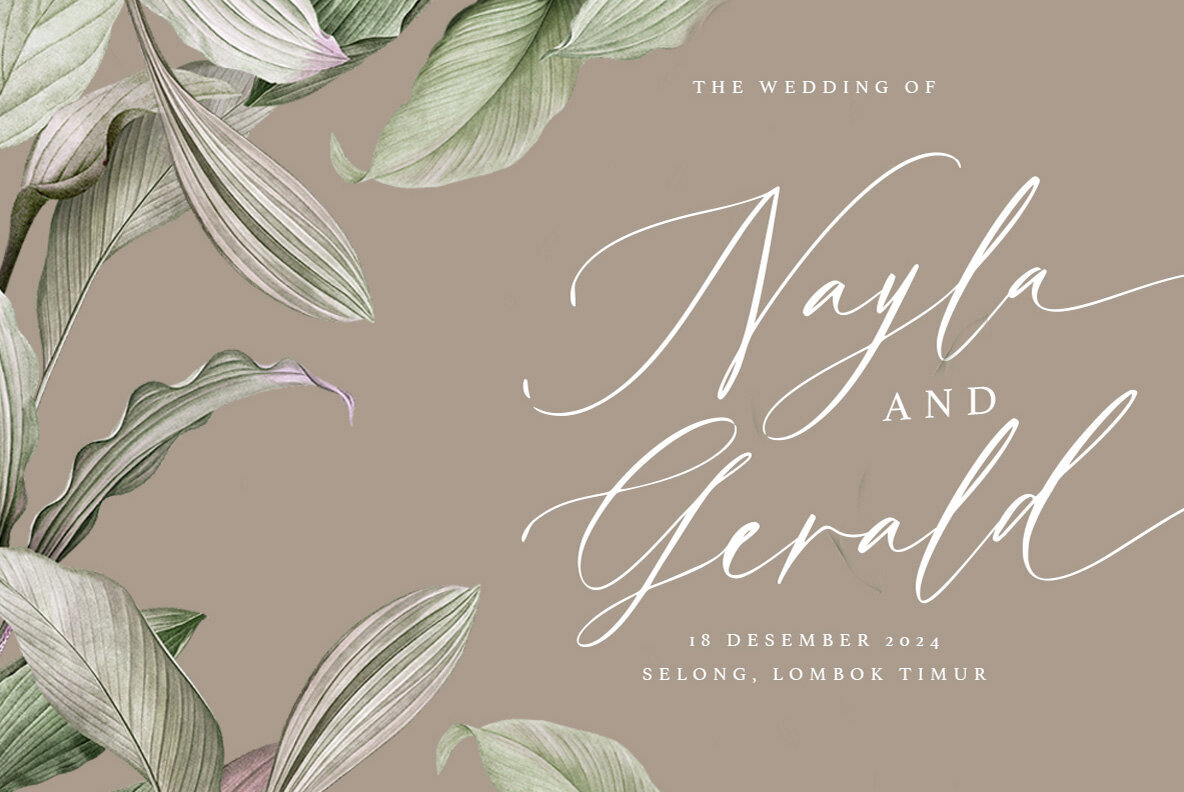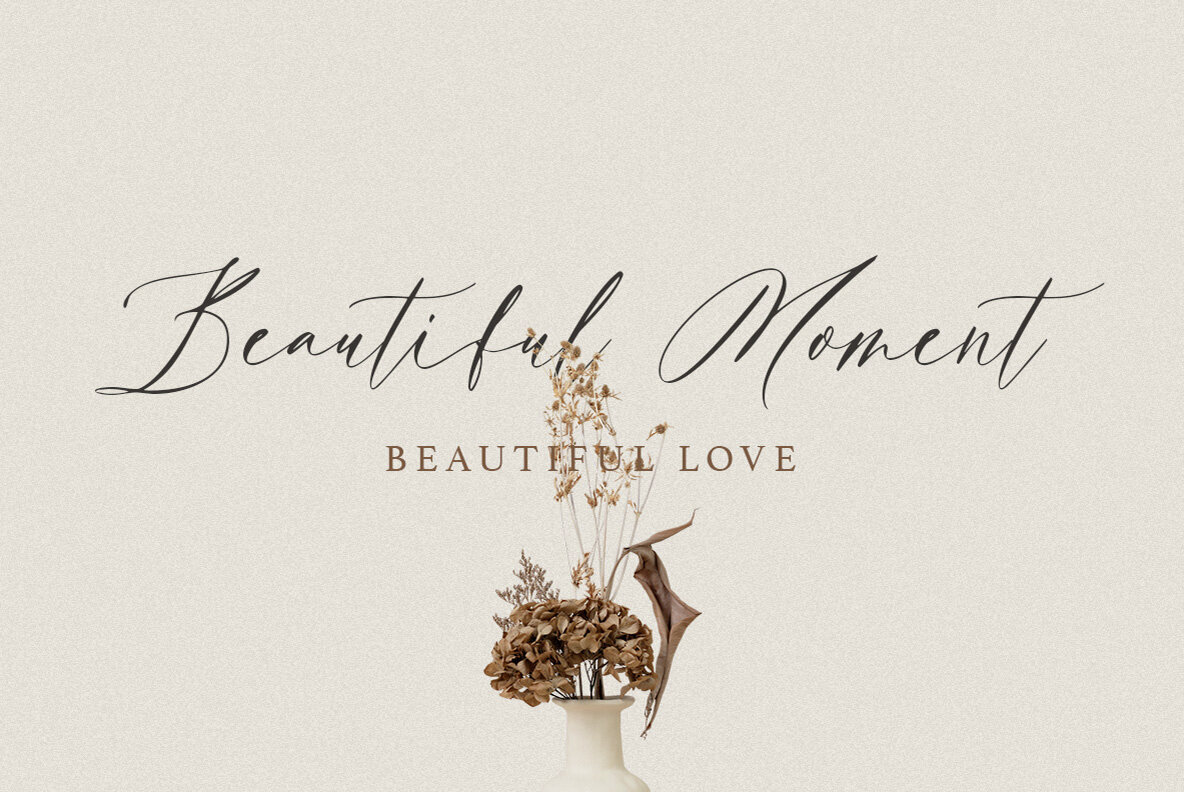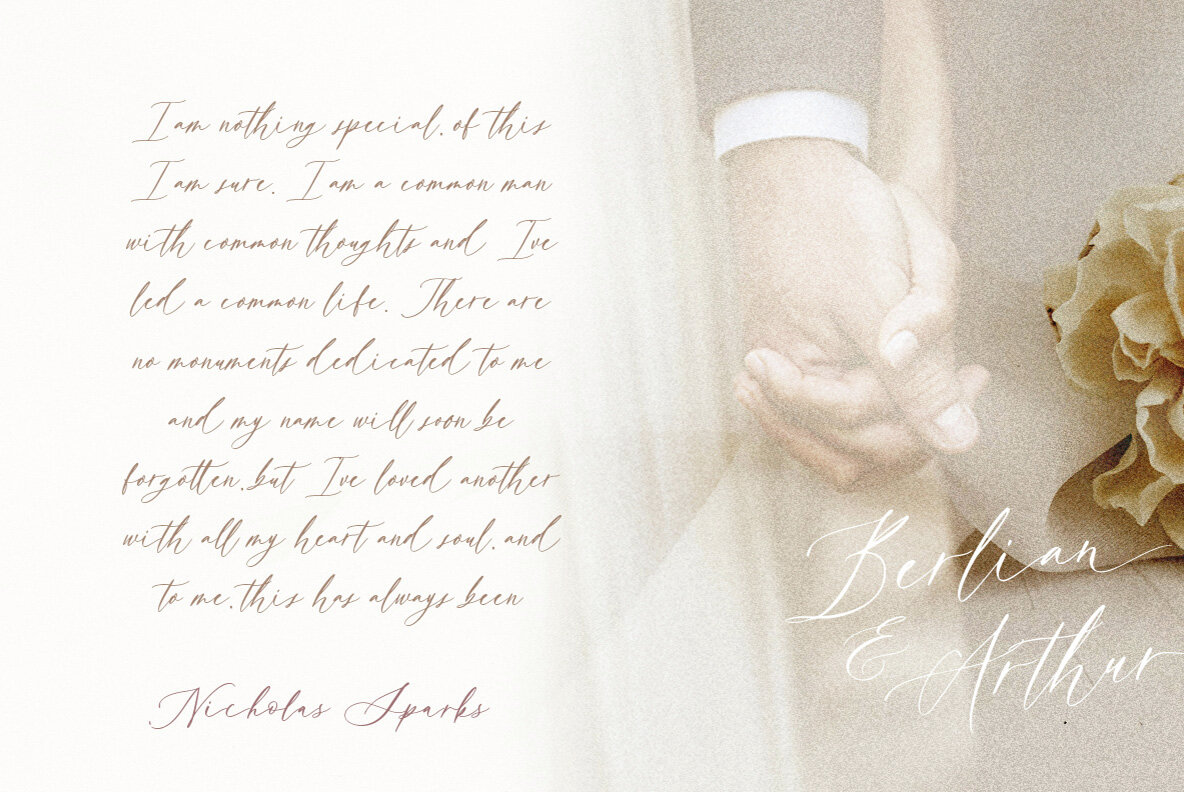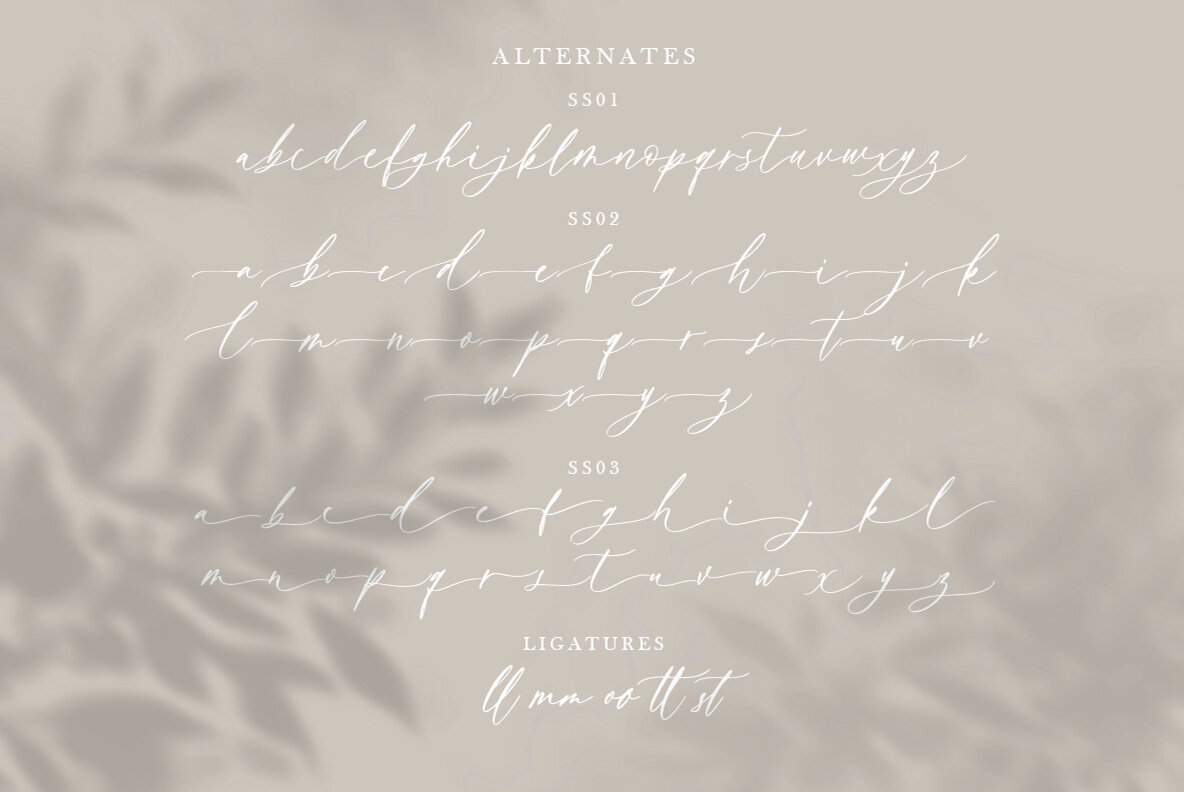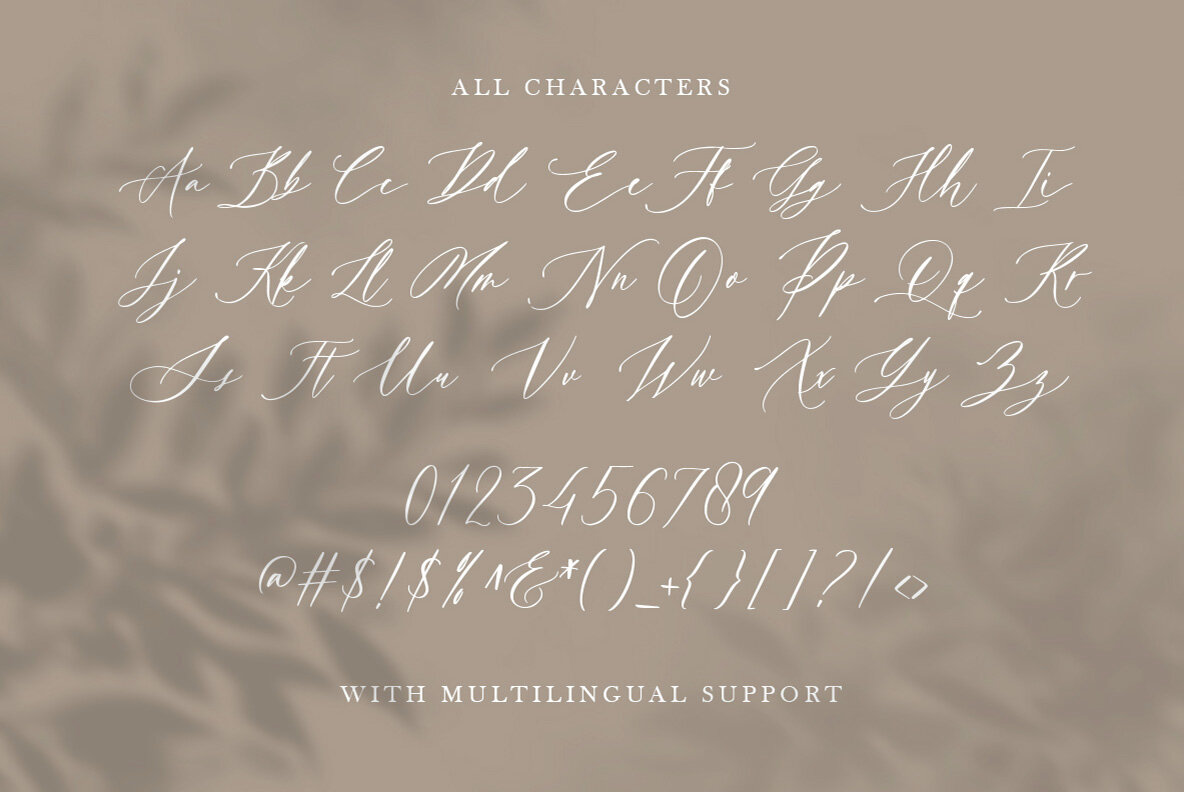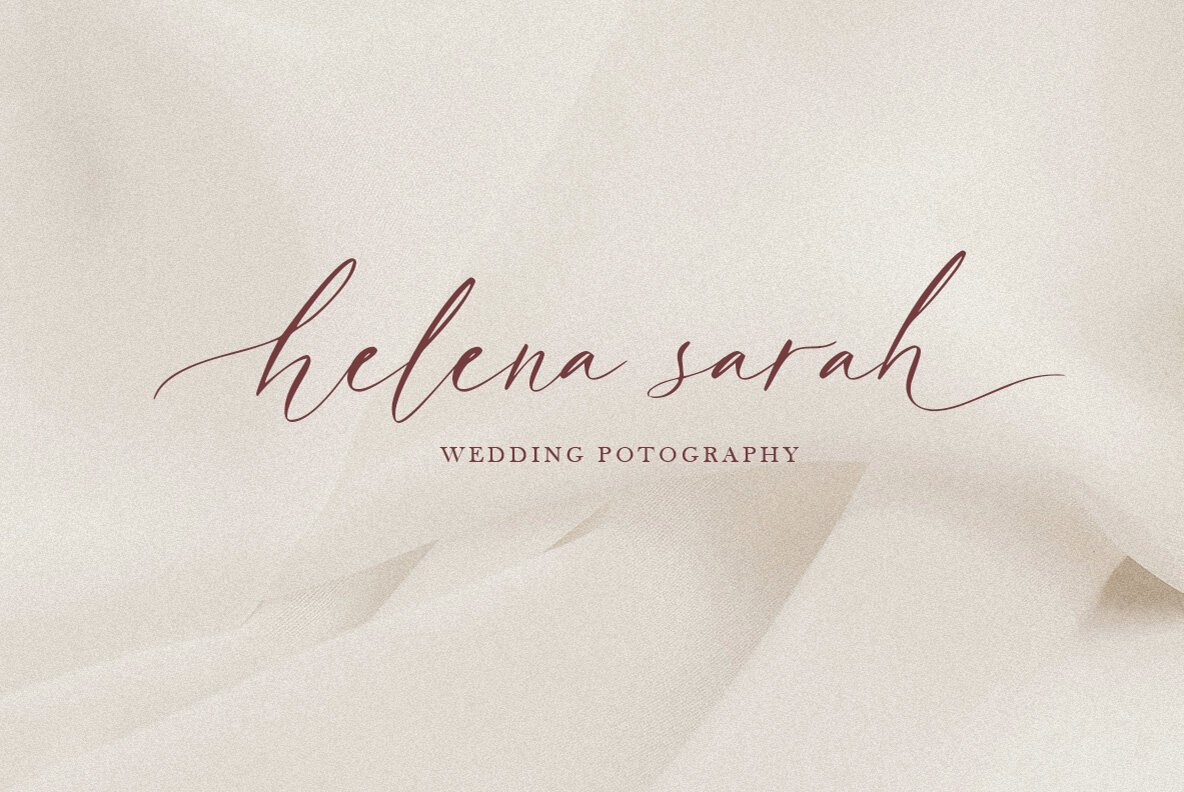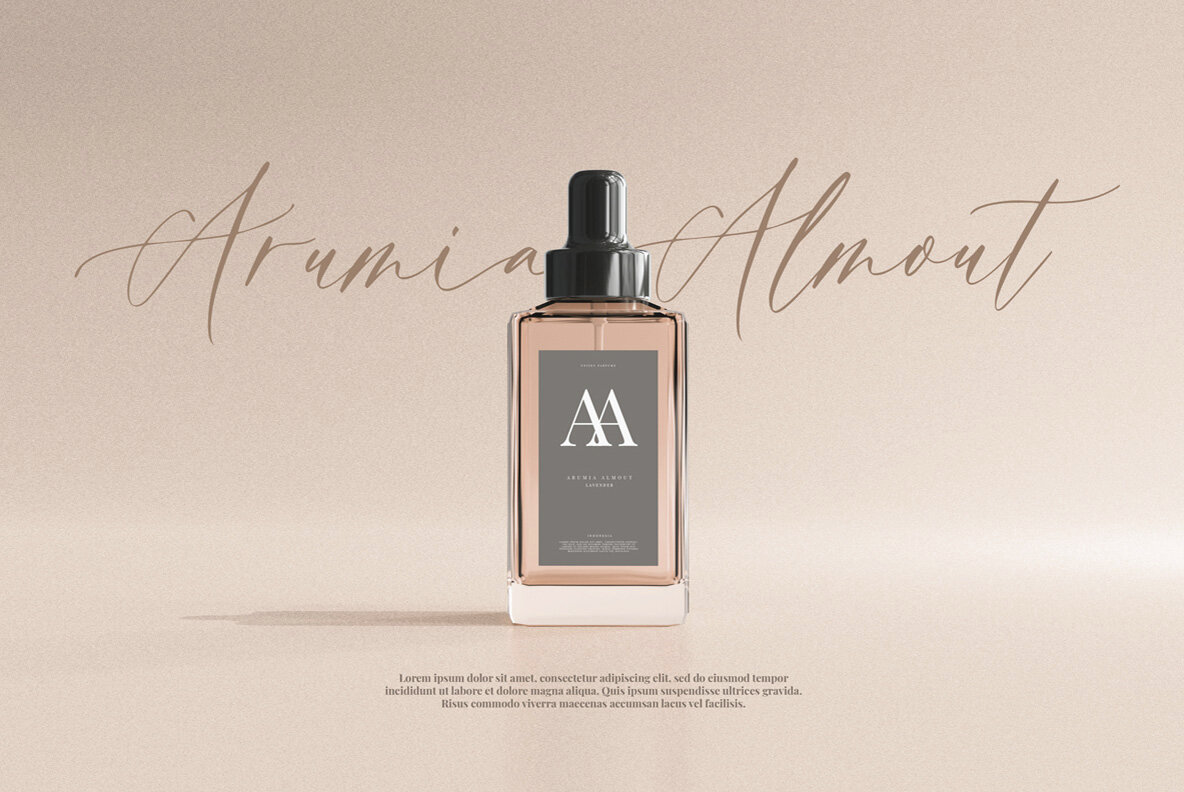
Bitter Love Font
Bitter Love Regular
Bitter Love is a modern calligraphy font that have elegant, feature a fluid and flowing style with a mix of thin and thick strokes. This font is based on brush lettering and have a natural, expressive feel, making them suitable for a wide range of design projects especially wedding invitations. This font also add sophistication and elegance to any design and can be used to create a handwritten look without the time and effort of actual calligraphy. This font also contains ligature, alternates, also terminal and end swash. Bitter Love also support Multilingual.